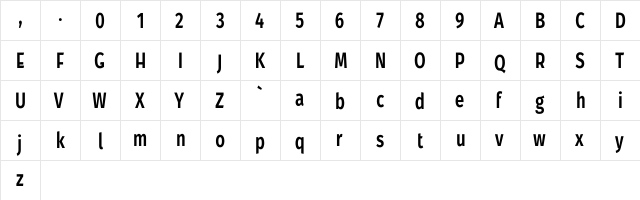
Lovtony Sans Regular
Lovtony Sans is a composed and adaptable typeface that performs quietly and consistently across a wide range of design contexts.